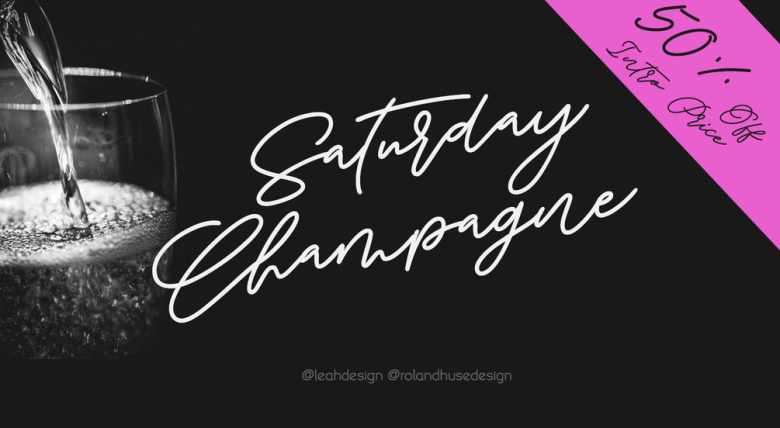
Saturday Champagne Font
Introducing Saturday. It is a product designed and shared by Roland Hüse. SATURDAY CHAMPAGNE is a monoline modern calligraphy script. Perfect for titles, headings and logotypes for blogs, ads, quote prints, home decor, book title, invitation, birthday, custom product, lifestyle imagery (like quotes and stuff).